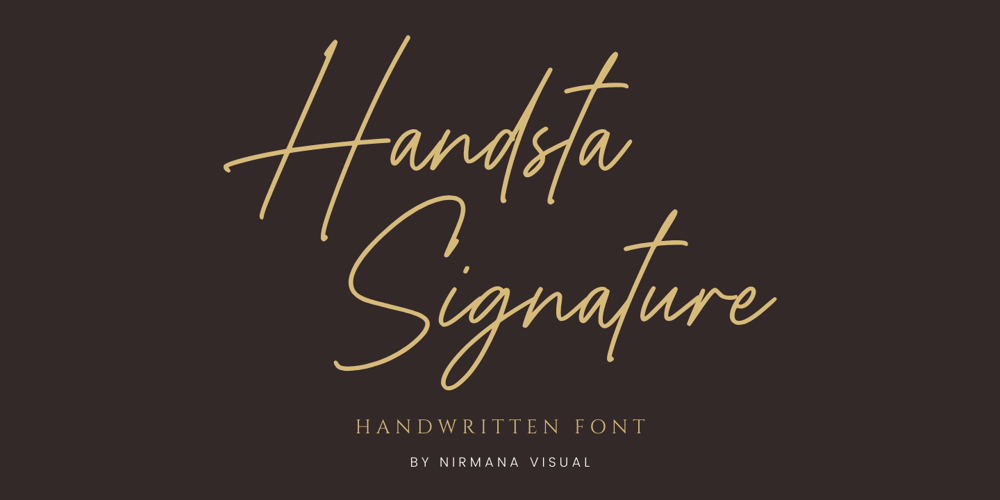
Handsta Signature Font Family was designed by Sigit Dwipa and published by Nirmana Visual. Handsta Signature contains 1 styles and family package options. Handsta Signature a classy, contemporary of script font, inspired by Handwriting Signature.Ideally suited for advertising and packaging, festive occasions, editorial and publishing, creative industries and posters .